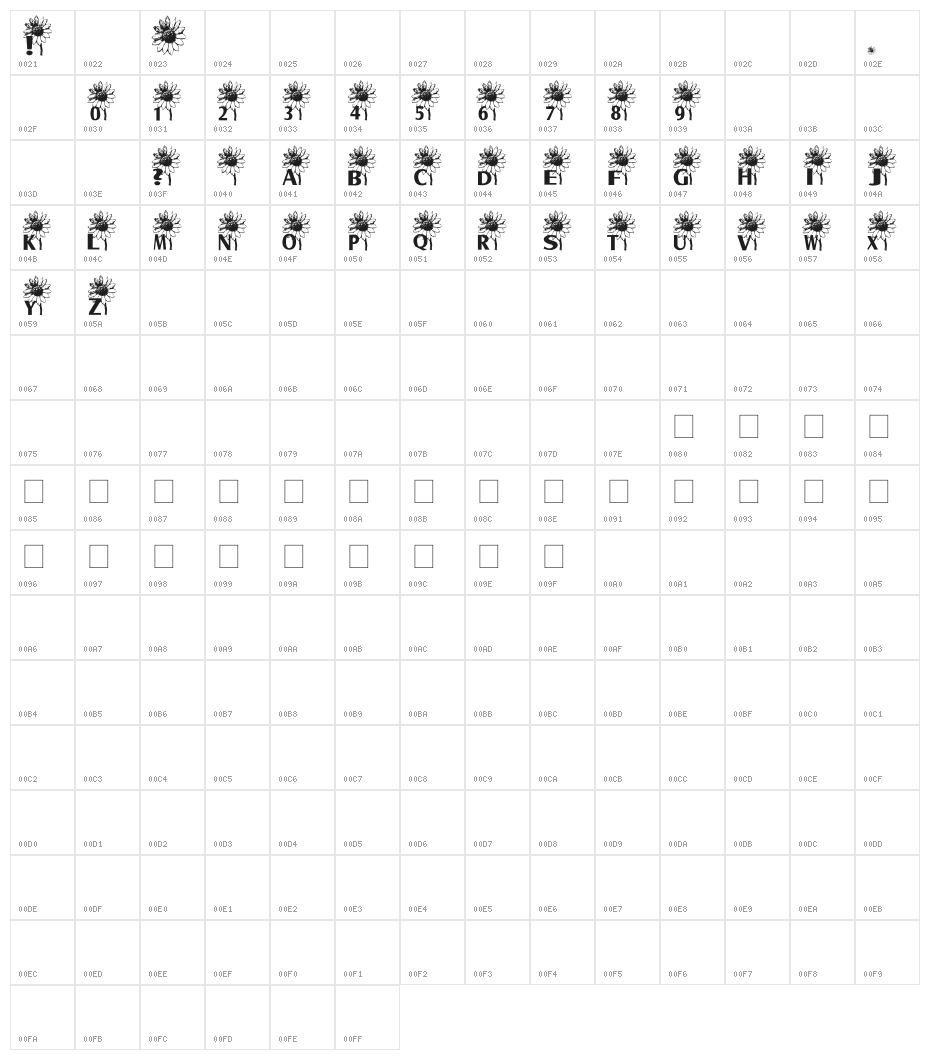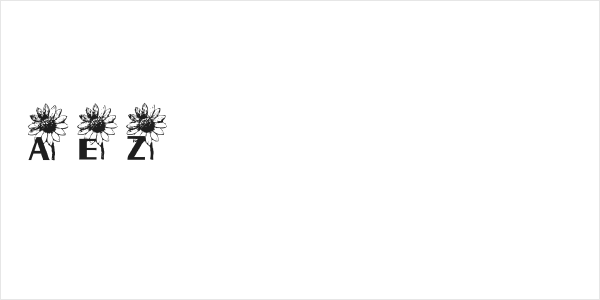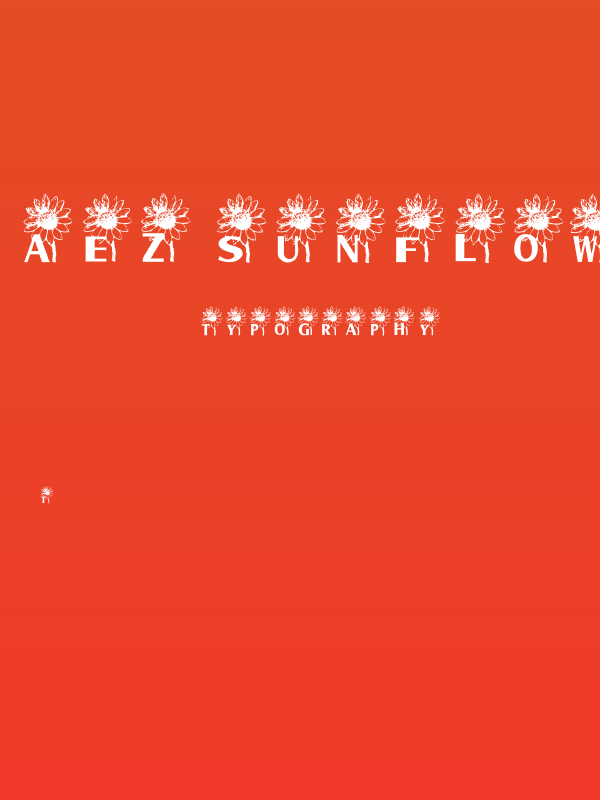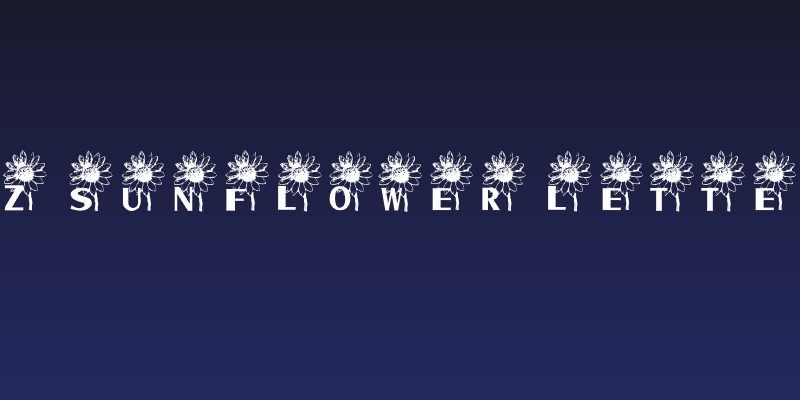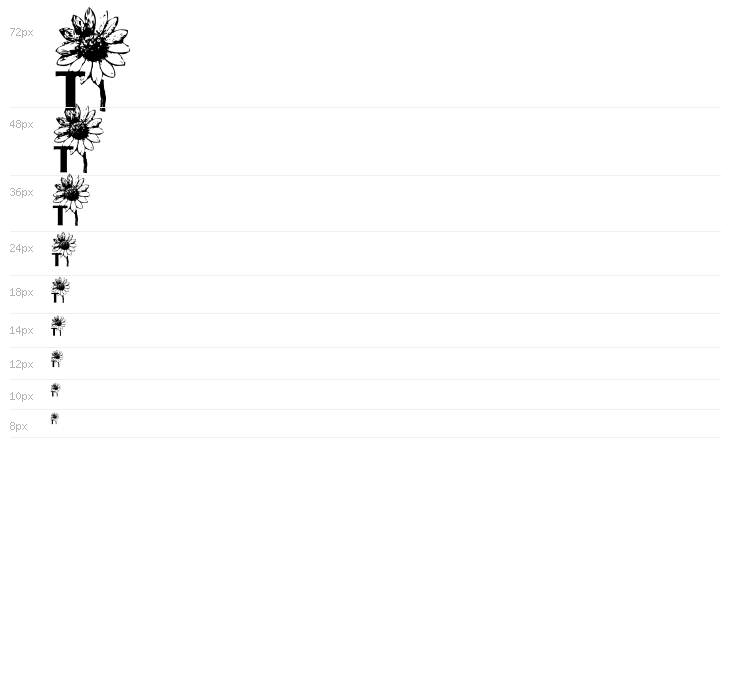
AEZ sunflower letters Font
AEZ sunflower letters Description
This decorative font features a unique design where each character is integrated with a sunflower illustration. The letters are bold and uppercase, with the sunflower motif adding a playful and artistic touch. The numbers follow the same style, with each digit accompanied by a sunflower. This font is ideal for creative projects that require a natural or floral theme. The combination of bold typography with intricate floral details makes it stand out, perfect for eye-catching designs.
| Use Case | Headlines, Logos, Artistic projects |
| Proposed Projects | Ideal for greeting cards, posters, nature-themed branding, and artistic projects. |